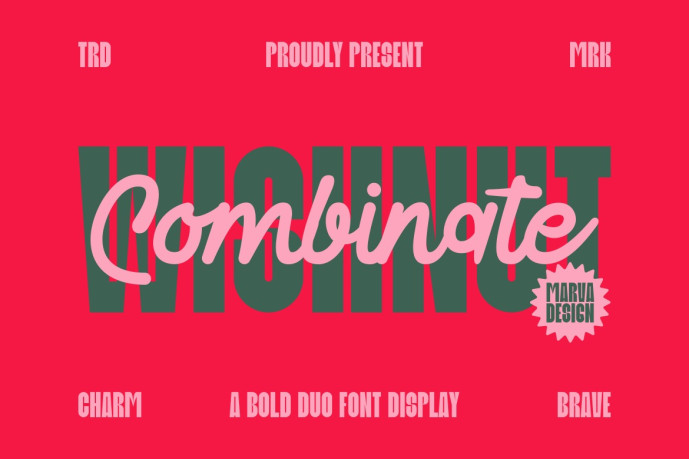
Wishnut Font Duo
Designer: marvadesign
Wishnut Font Duo is a bold and expressive display font family designed to bring strong visual impact and a playful personality to any creative project. The typeface is available in three distinct styles: condensed, condensed italic, and script, each designed to complement the others in terms of contrast and
of rhythm.
The Condensed style features tall, powerful letterforms with a strong vertical emphasis, making it perfect for headlines, posters, and striking typographic compositions. Its geometric structure and compact spacing create a solid, modern presence that commands attention. The Condensed Italic variant introduces a subtle forward slant, adding movement and energy while retaining the boldness of the original Condensed style, ideal for dynamic layouts or expressive editorial design. The Script style complements these, bringing a fluid, handwritten aesthetic. Its organic curves, rounded ends, and gentle rhythm lend it warmth and charm, making it a perfect contrast to the heavy, condensed forms.
Together, these three styles create a versatile dual-display system that combines strength and elegance. Wishnut is designed for branding, posters, editorial headlines, social media graphics, and any visual work requiring bold typography coupled with an expressive personality.